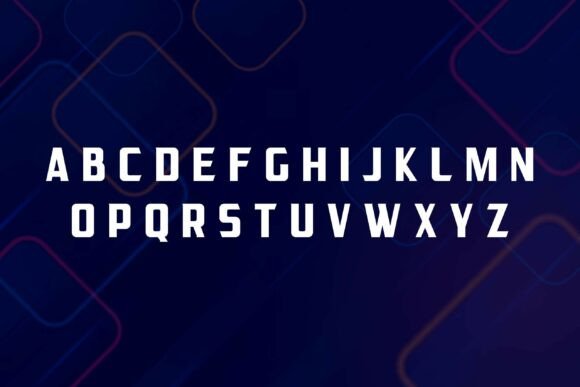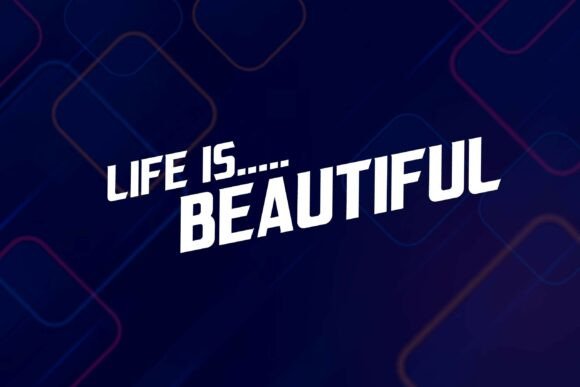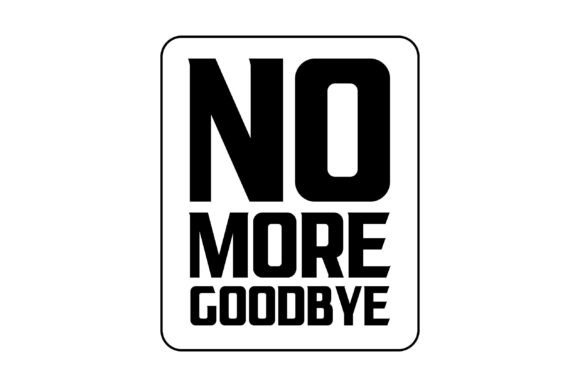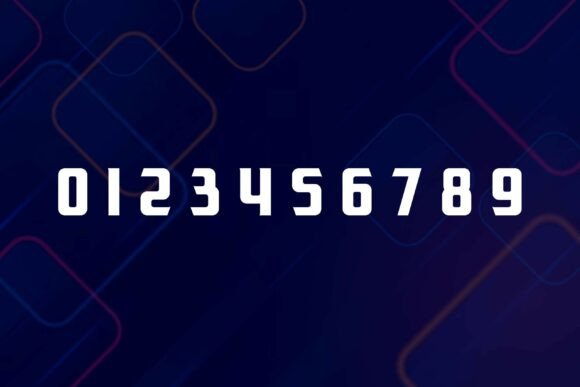
A New Era of Typography: Introducing the Aquila Bold Font
As designers, we’ve all been there – staring at a blank canvas, waiting for that spark of creativity to ignite our imagination. It’s a moment we cherish, and one that can lead to some of our most innovative and breathtaking work. But, let’s face it, sometimes all it takes is the right font to elevate our designs to the next level.
Enter the Aquila Bold Font, a stunning Gothic-crafted font that’s perfect for making a statement. With its 96 beautifully designed glyphs and 95 characters, this font is a treasure trove of creative possibilities. Whether you’re designing movie titles, cartoon names, game titles, or even T-shirt designs, the Aquila Bold Font is sure to add a touch of premium display quality to your work.
For designers, the value of the Aquila Bold Font lies in its perfect balance of creativity and professionalism. Its striking presence and versatile style make it an ideal choice for projects that demand attention and artistic excellence. So, why settle for anything less when you can have the best? Try the Aquila Bold Font today and discover a whole new world of design possibilities.
Aquila Bold Font Key Features
- Font Family: Aquila Bold is a modern sans-serif font family designed for digital media.
- Character Set: Supports a wide range of languages, including Latin, Cyrillic, and Greek alphabets, making it suitable for global applications.
- Unique Characteristics: Features a bold and geometric design with clean lines, making it perfect for headlines, titles, and other attention-grabbing text elements.
Aquila Bold Font Review
Aquila Bold Font is a stunning sans-serif font that has made quite an impression on me. The font is perfect for headings and titles, and it works incredibly well for creating a bold and modern look. ✨ The weight is even and well-balanced, making it easy to read even in large sizes. I’ve used it for a few projects, and the results have been fantastic.
Some of the things that work well in Aquila Bold Font include:
- Its modern and clean design makes it perfect for digital interfaces and headings.
- The font is highly legible, even at large sizes.
- It has a wide range of weights, making it easy to mix and match with other fonts.
- It’s highly customizable, allowing you to adjust the font’s behavior and settings to suit your needs.
- ⚠️ The font may not be as suitable for body text, as it can be a bit too bold and overwhelming.
- ⚠️ The font may not be available in as many languages as some other fonts, which could be a problem for international projects.
Overall, I’m really impressed with Aquila Bold Font. It’s a great choice for headings and titles, and it’s highly customizable to boot. While it may not be perfect for every project, it’s definitely worth considering for any design work that requires a bold and modern look.
Aquila Bold Font is ideal for:
– Creating eye-catching headlines and titles.
– Adding a touch of sophistication to your branding materials.
– Making a statement in your marketing materials and social media posts.
Tips for Getting the Most Out of Aquila Bold Font
– Use Aquila Bold Font sparingly to avoid overwhelming the viewer.
– Pair it with a clean and simple background to let the font take center stage.